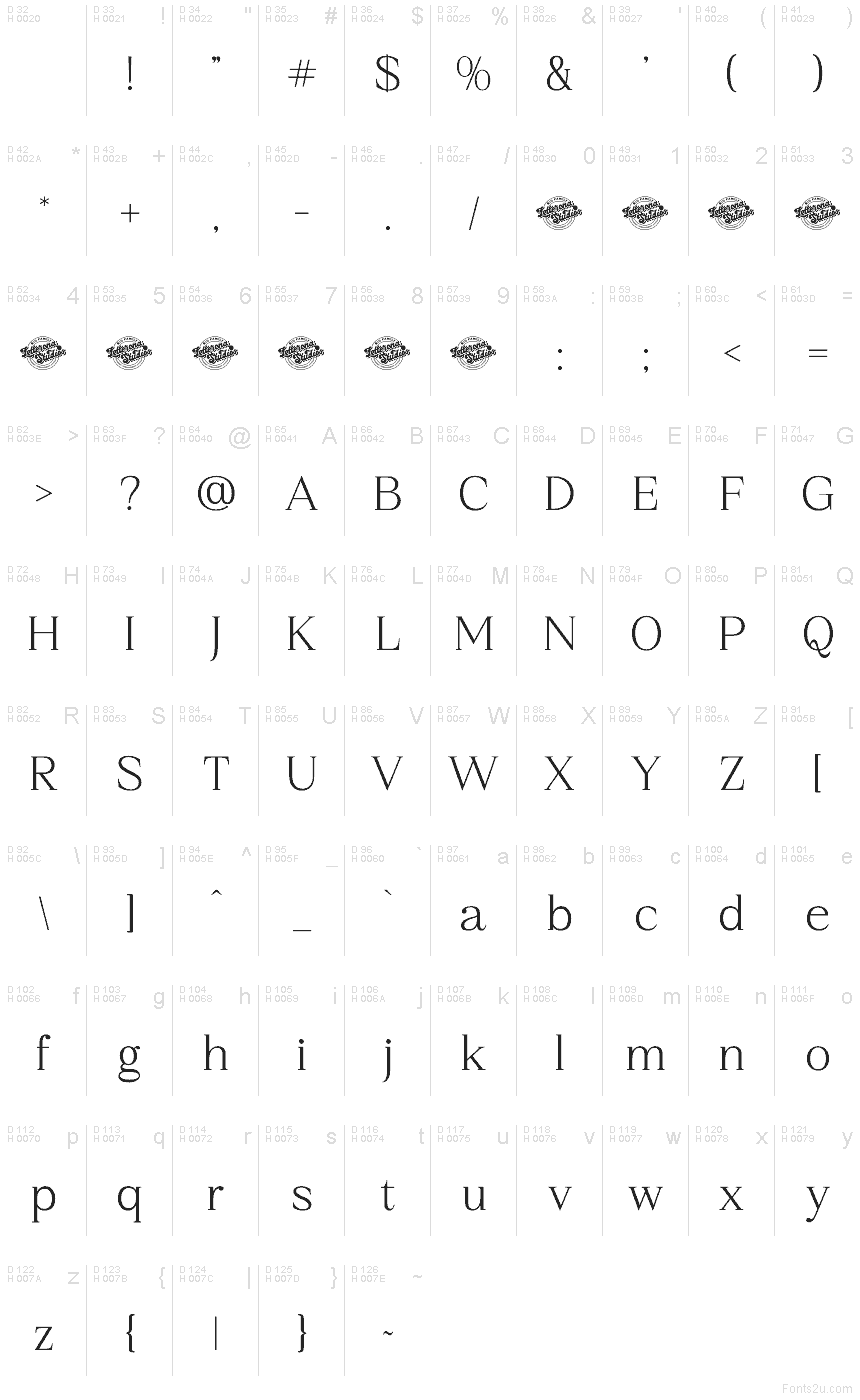
Qestrafin DEMO VERSION
Qestrafin font, designed by Letterena Studios, is a serif typeface with an elegant, classic look. The sophisticated appearance conferred by its refined style can elevate your artwork adding that serious note needed to impress diverse audiences. The thin letterform and unique stem/terminal style are some of the features which characterize this beautiful free font.
Qestrafin will help you achieve visually-rich presentations in titles for books, magazines, newspapers; body content for novels and blogs; resumes, posters, ads and social media captions. Other places where it can be used according to your needs include labels on cosmetic packaging or tech product instruction manuals.